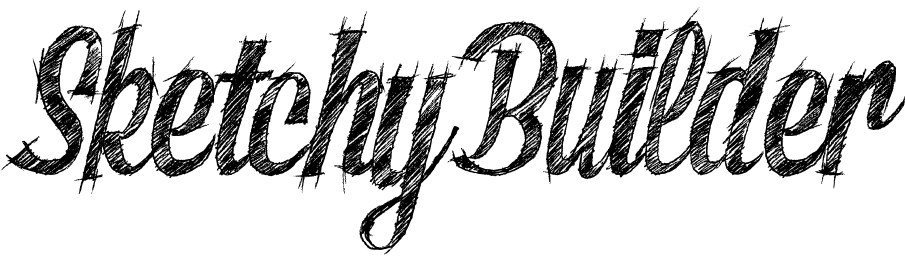
Sketchy Builder Font
The reason Sketchy Builder Font is genuinely exciting is its raw, unpolished energy. It successfully mimics the quick, rough strokes of a pencil or marker, giving the text an immediate sense of motion, spontaneity, and human warmth. This "sketchy" look is a powerful way to break away from sterile digital perfection, making your design feel more approachable, inventive, and dynamically creative. It’s the perfect choice when you need a font that embodies process, fun, and imaginative flair.
The Sketchy Builder Font family typically concentrates its aesthetic power in a single, distinct style (Regular) designed to maximize its scribbled appearance. However, some variants may offer an accompanying Bold or Fill style to enhance its utility for layered designs or block lettering. The commercial version is often rich in unique hand-drawn elements, dingbats, or alternates to complete the authentic sketchy look. For a font that adds genuine character and playful energy to your visuals, secure your Sketchy Builder Font Free Download today.